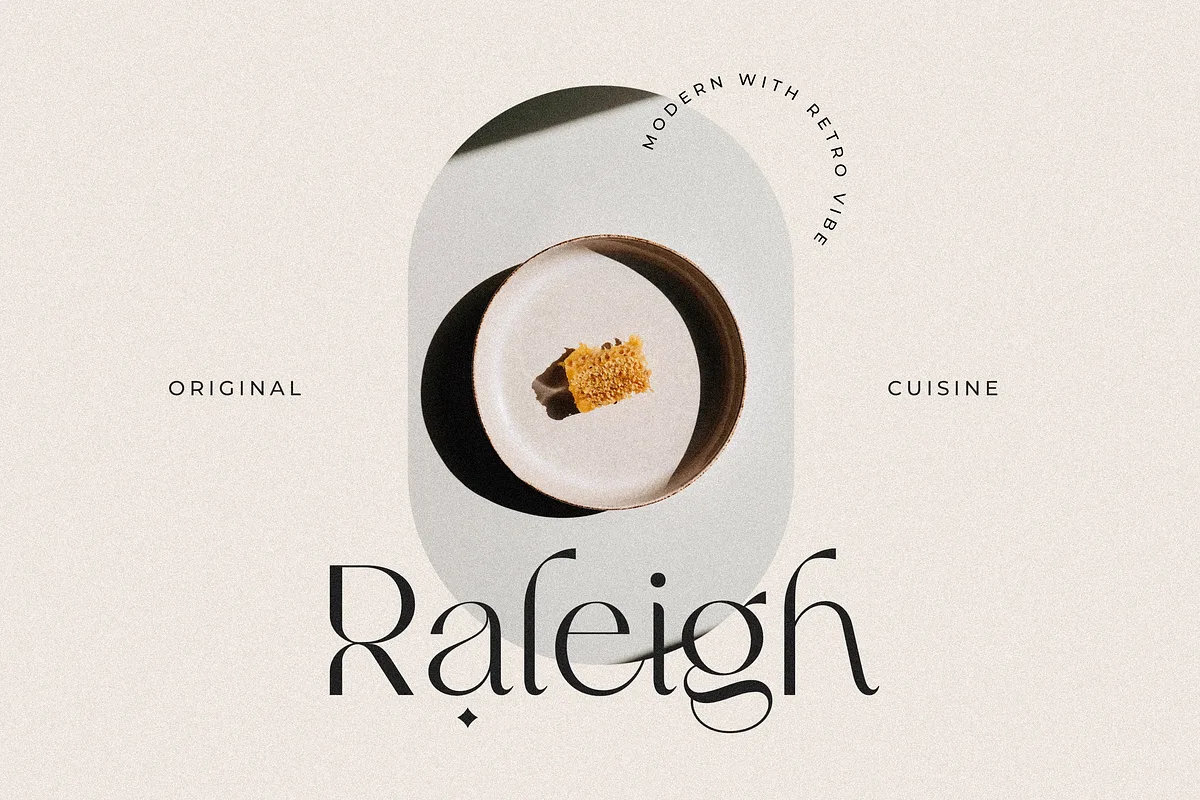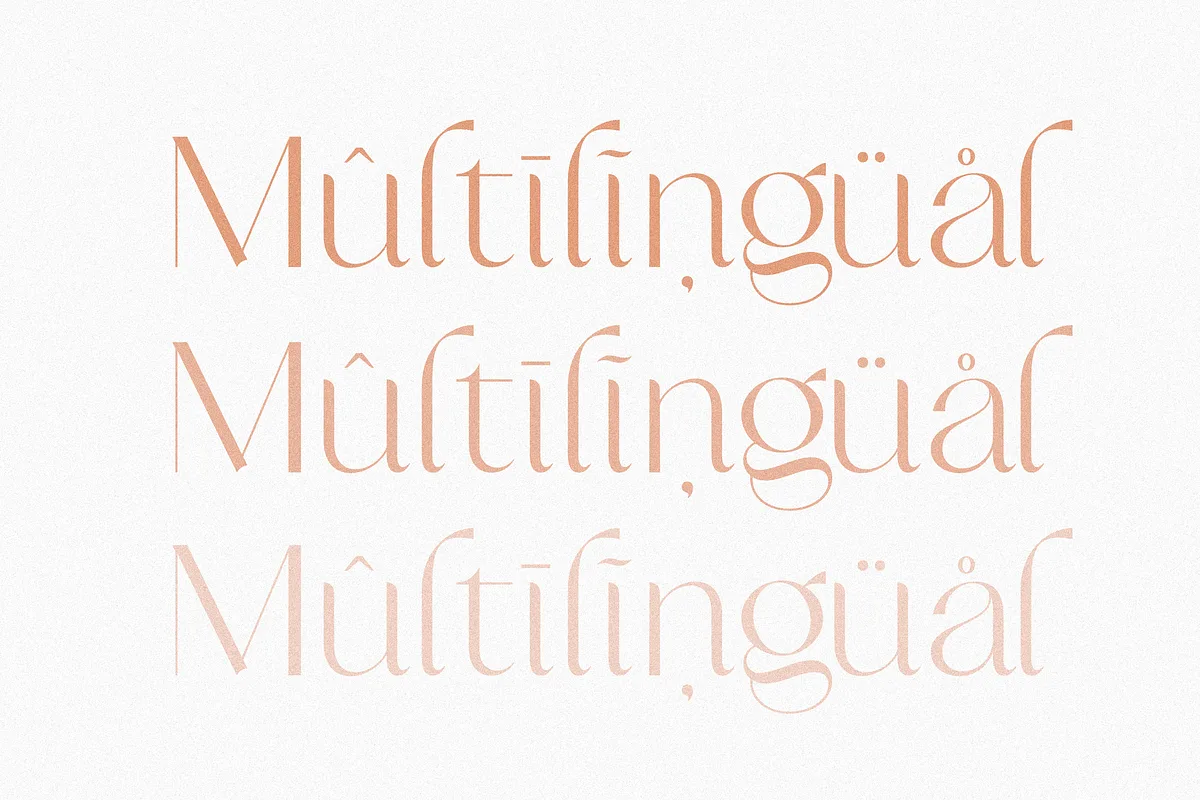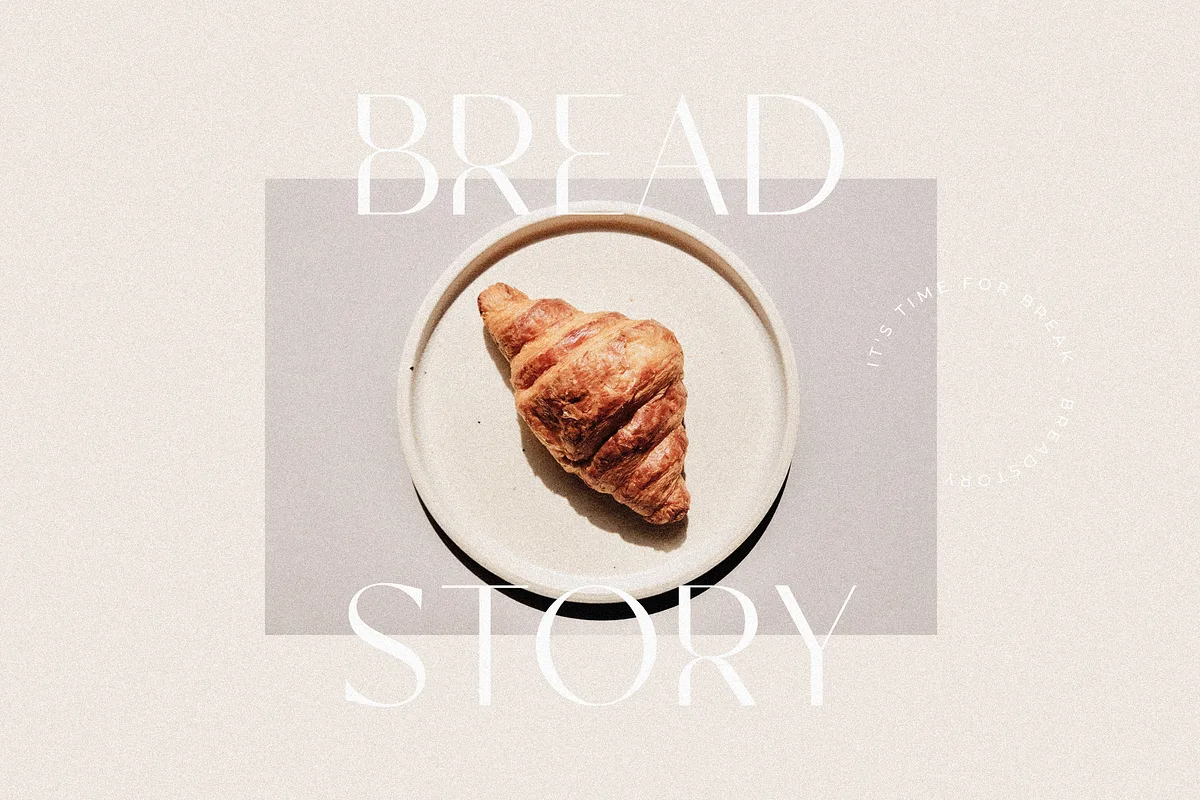
Frunchy – Modern Elegant Chic Font by Sans and Sons. Introducing our new “Frunchy” Modern Ligature with Elegant Style this is perfect for branding, logos, invitation, masterheads and more.
- Multilanguage
- Alternates
- Ligatures